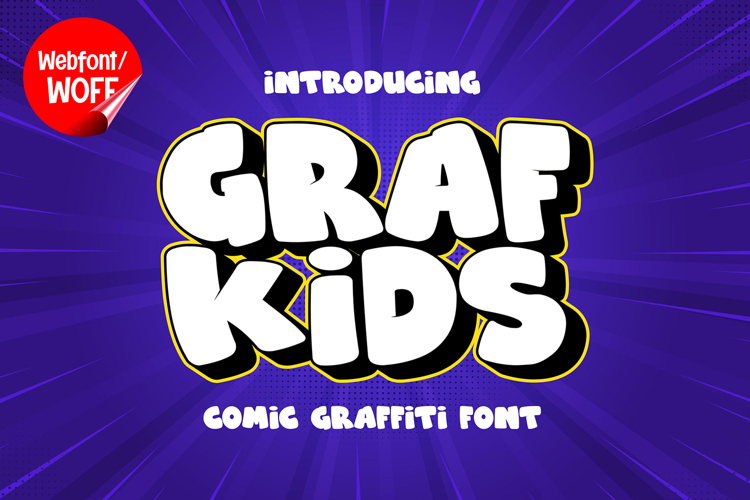
Grafkids | Bold Graffiti Webfont for Playful Urban Design
Grafkids is a bold graffiti webfont designed to bring energetic street style with a playful twist into modern website design. Inspired by urban lettering and kid-friendly graffiti aesthetics, this font features thick strokes, rounded edges, and lively forms that create a fun and eye-catching visual presence. It is an excellent choice for projects that aim to combine bold impact with a friendly and approachable character.
Grafkids includes a complete set of uppercase characters designed with bold graffiti-inspired shapes. The letterforms are thick and expressive, with smooth curves that give the font a playful and approachable look. These characteristics make it ideal for headlines, banners, hero sections, and featured content where strong visual impact is needed while maintaining a fun tone.
In addition to letters, the font includes numbers and punctuation, allowing flexible usage across various parts of a website. It works well for children’s content, product promotions, event announcements, branding elements, and call-to-action sections. Each character maintains a consistent graffiti style, ensuring a cohesive and unified visual identity throughout the layout.
With multilingual support, Grafkids includes a wide range of accented characters, making it suitable for international websites and global audiences. This allows content to be displayed clearly across different languages while preserving the bold and playful graffiti aesthetic.
The bold graffiti style of Grafkids makes it especially suitable for kids’ websites, streetwear brands, creative portfolios, gaming platforms, and entertainment content. Its lively and expressive design adds personality and charm, helping websites stand out in visually competitive environments. The playful character also enhances branding that focuses on creativity and fun.
Despite its thick and stylized appearance, Grafkids is designed with readability in mind. The spacing and proportions are carefully balanced to ensure clarity, particularly in display sizes. This makes it effective for impactful headings and short content elements where both style and usability are important.
Grafkids is a webfont that combines graffiti aesthetics with bold forms and a playful character, supported by modern web performance. Its thick shapes, smooth curves, and energetic style create a distinctive typographic presence that enhances website design. For projects that require a bold, fun, and visually engaging graffiti font, Grafkids offers a strong and versatile solution.